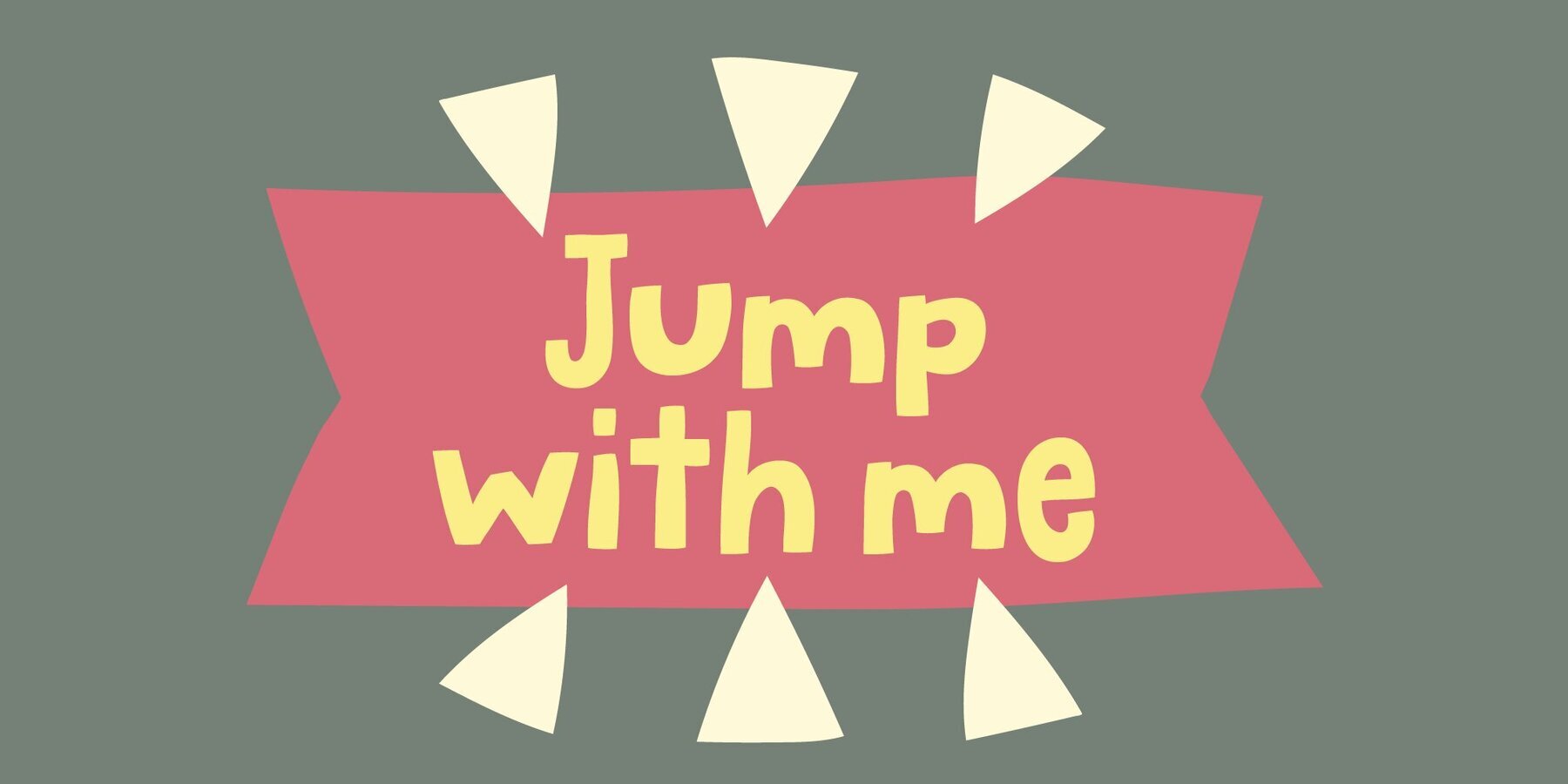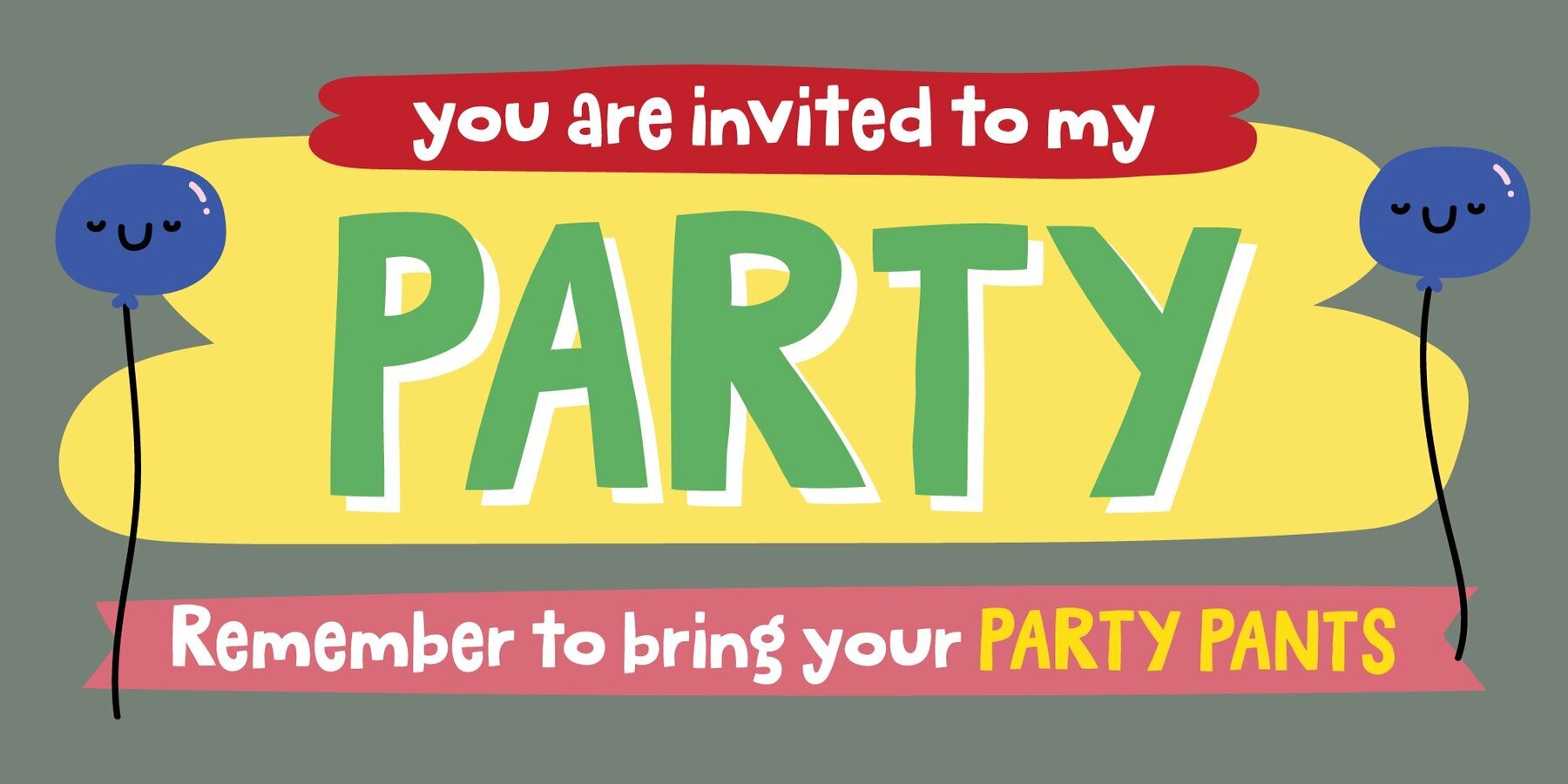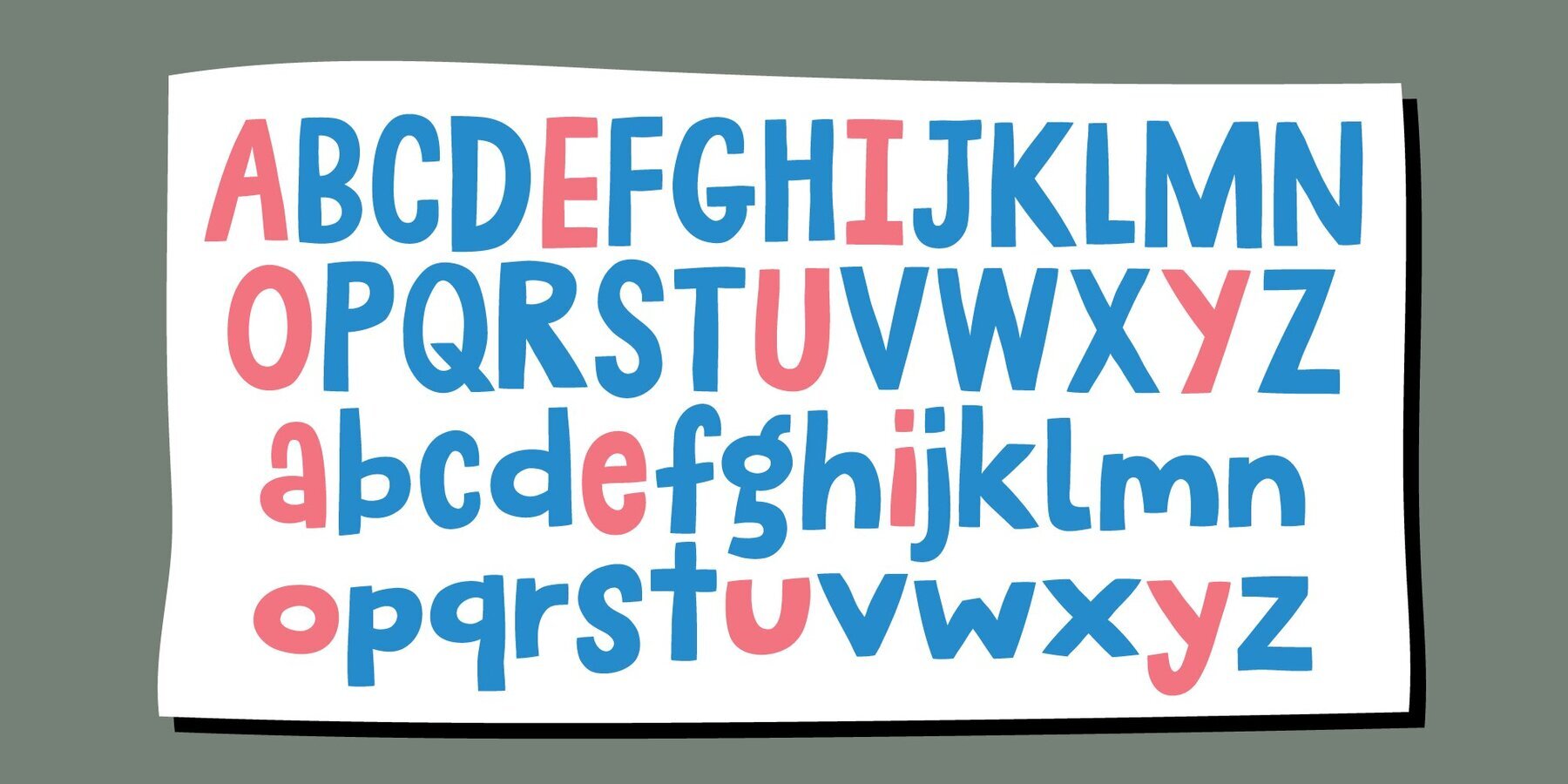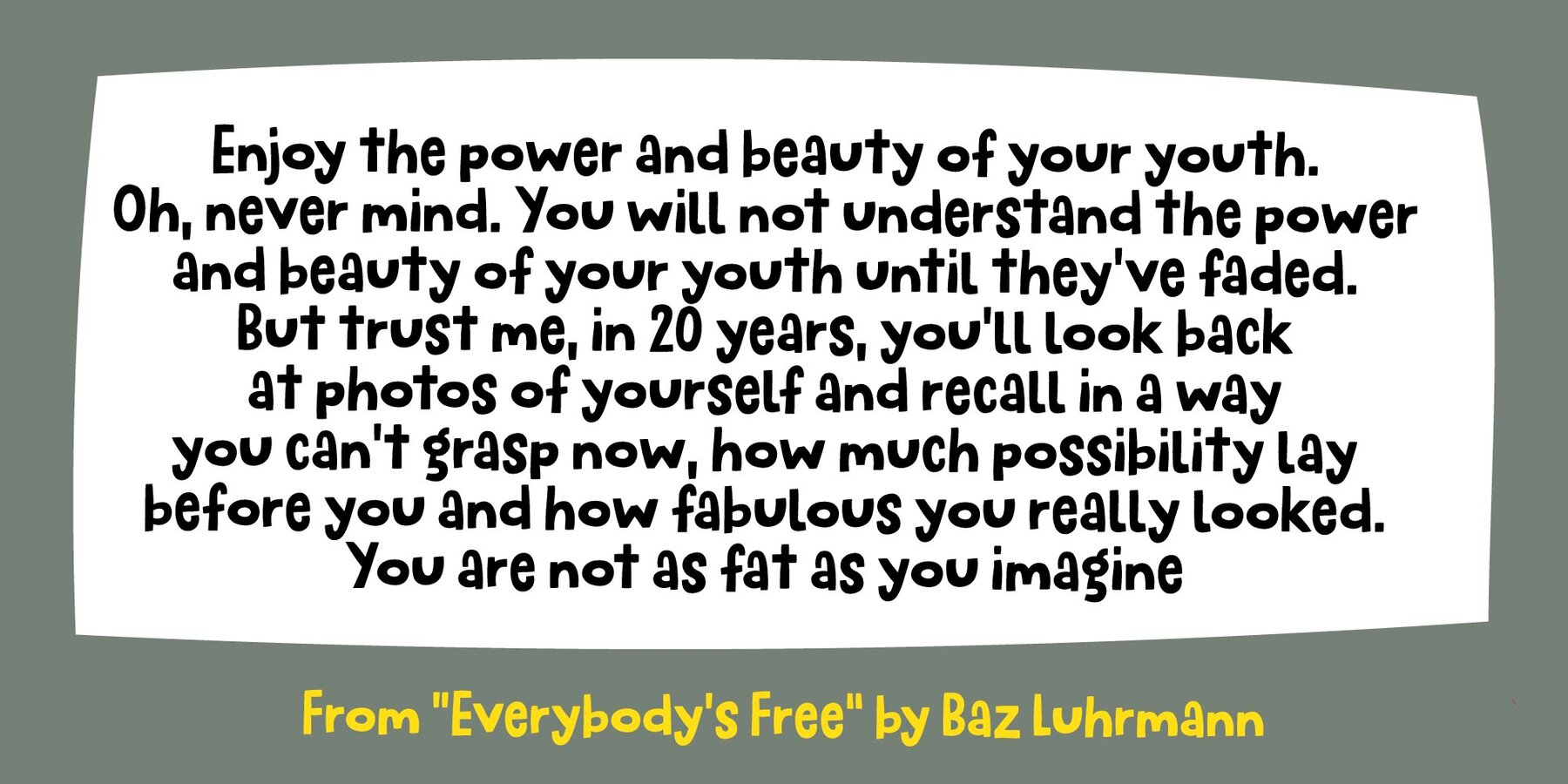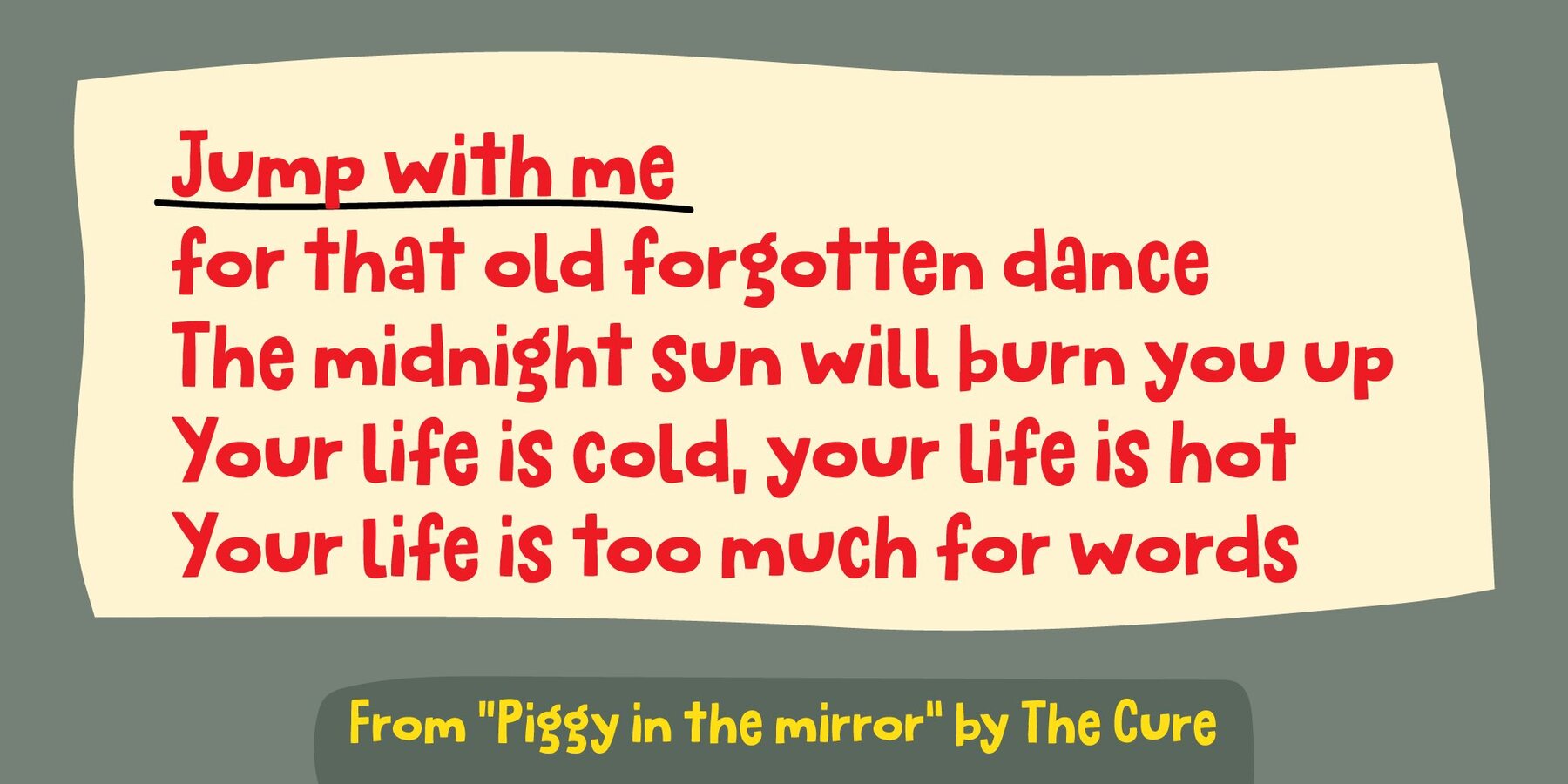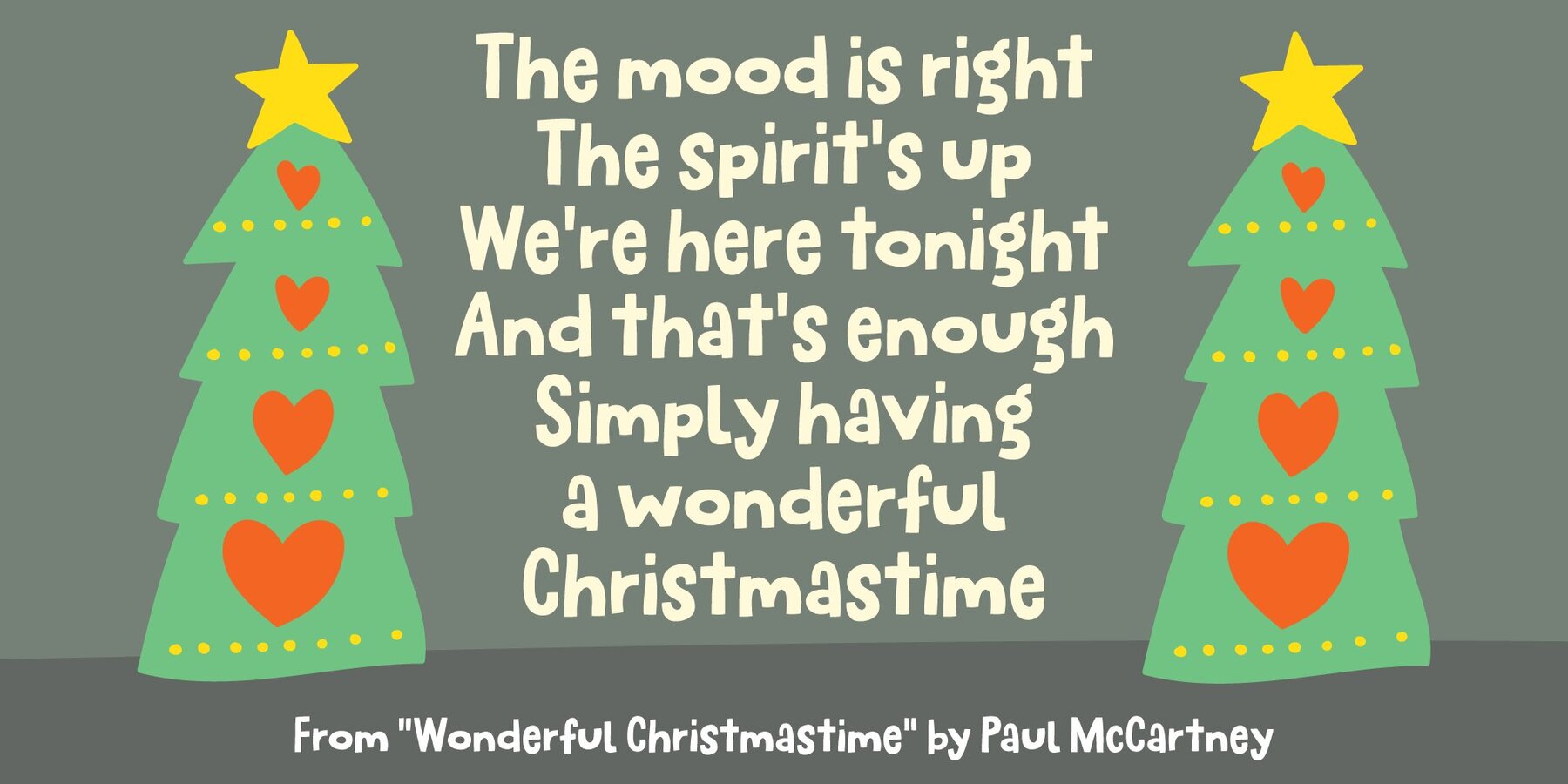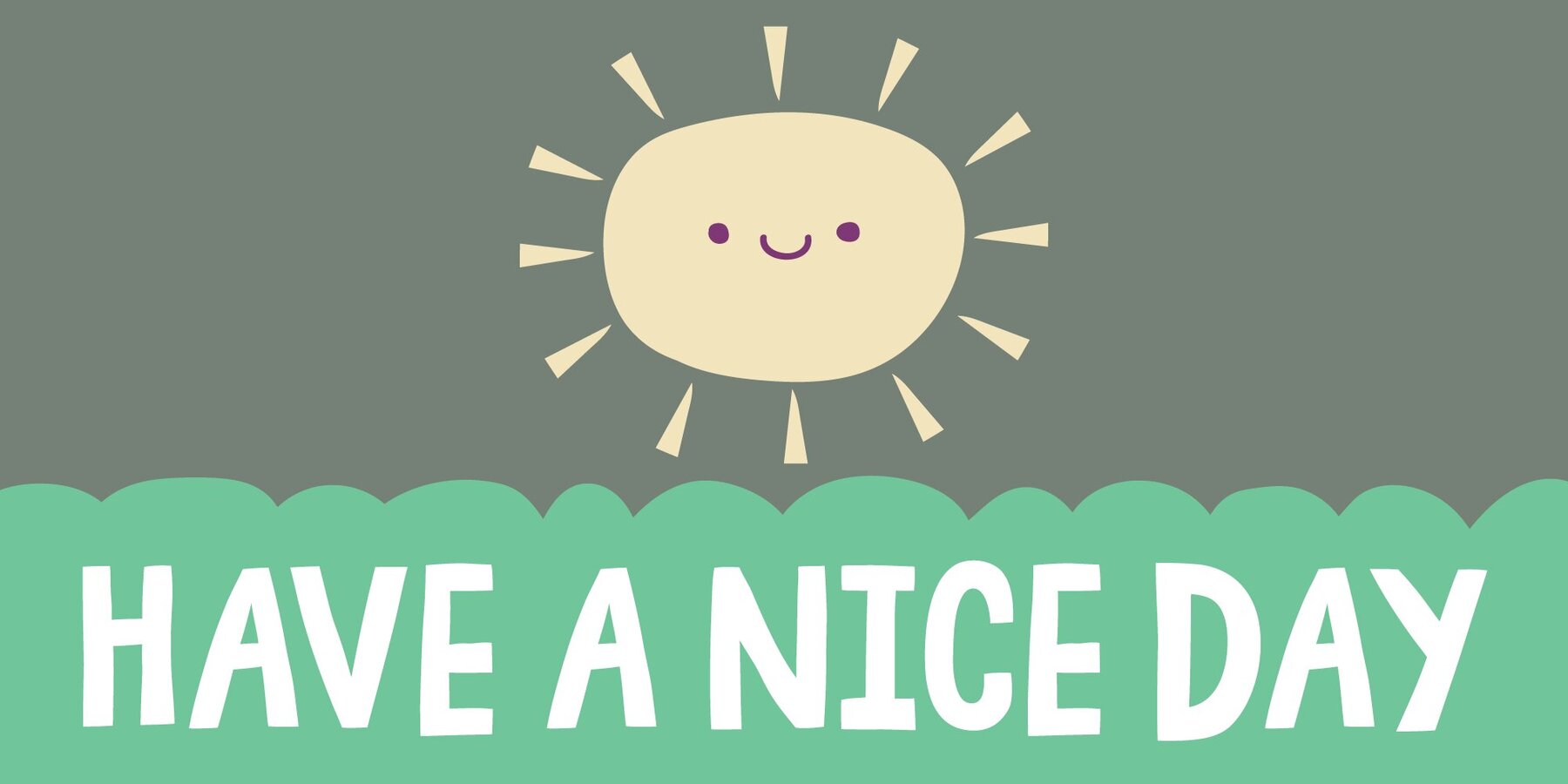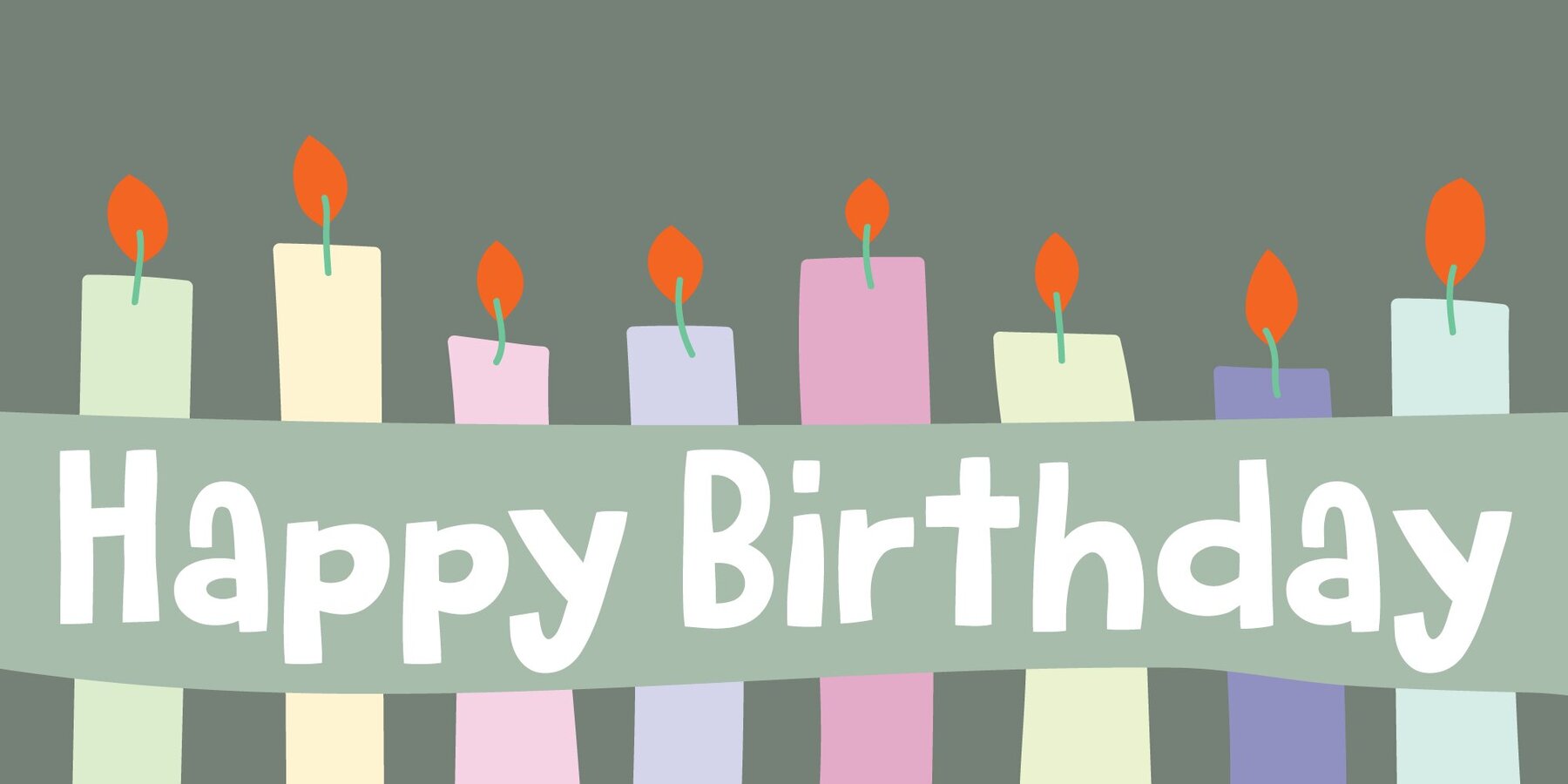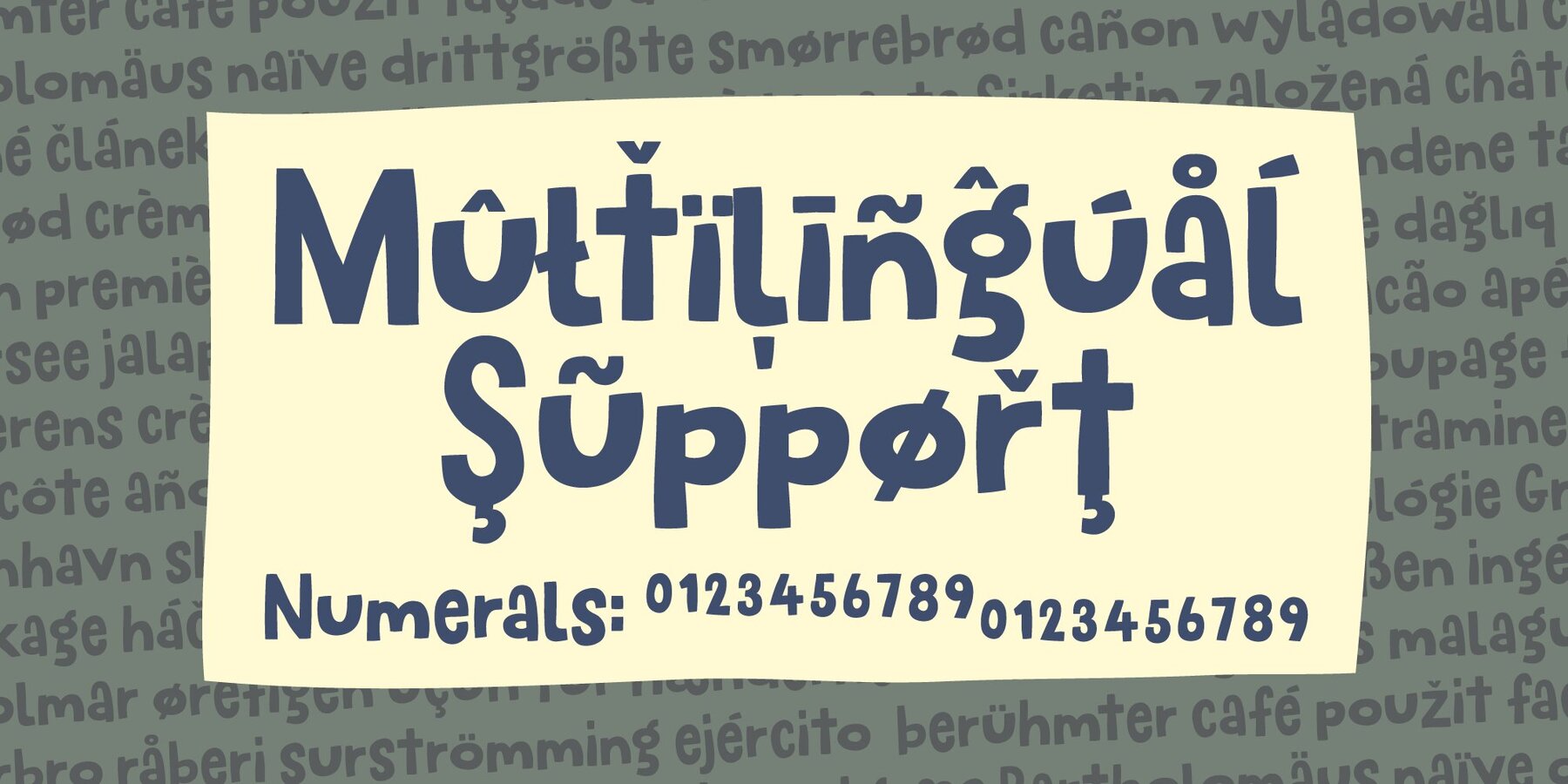
Jump with me Font
Jump With Me stands out for its cheerful character and reliable legibility, making it ideal for projects that call for energy and clarity. The smooth curves and notably lively x-height inject personality without sacrificing readability, supporting everything from editorial headlines to engaging poster designs. This playful comic font welcomes experimentation and is particularly well suited to creative branding. Every letter in this typeface has been meticulously refined, moving from handmade sketch origins to a polished, versatile result. The font’s spontaneous feel remains, while each glyph demonstrates careful attention to detail—delivering fun, expressive typography for contemporary visual storytelling.Jump With Me: Playful Comic Typeface With High Readability